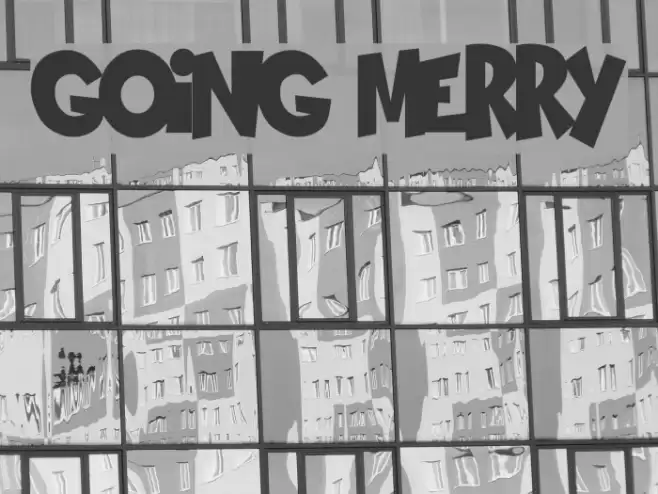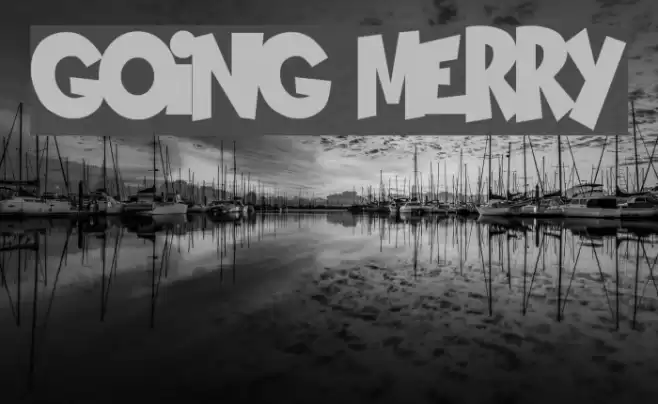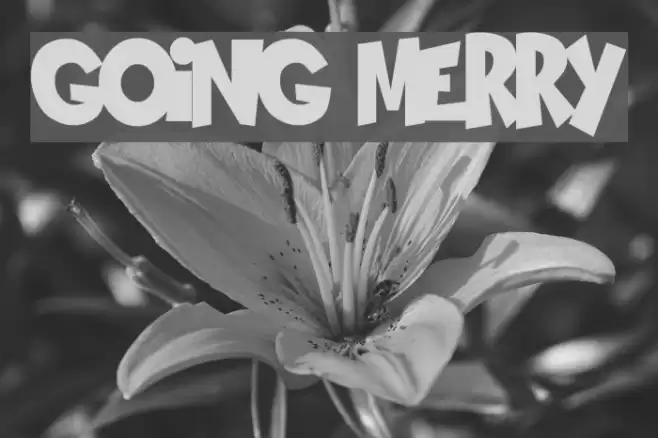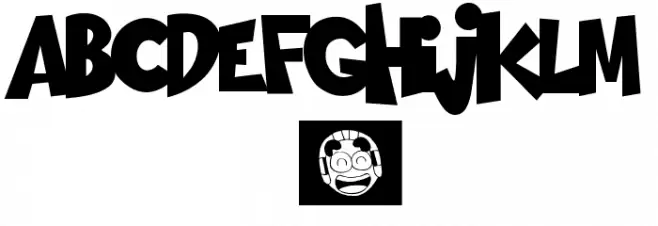
GOING MERRY Font
GOING MERRY Description
This font features bold, exaggerated characters with a playful and energetic style. The letters are heavily stylized with sharp angles and a dynamic flow, giving them a cartoonish and whimsical appearance. The uppercase letters dominate with their thick strokes and dramatic presence, while the lowercase letters maintain the same boldness. The numbers and special characters are equally expressive, maintaining the overall lively and bold aesthetic. This font is perfect for projects that require a fun and eye-catching design.
A bold, playful font with exaggerated, cartoonish characters from Uncategorized fonts.
- Proposed Projects: Ideal for comic books, children's books, posters, and playful branding.